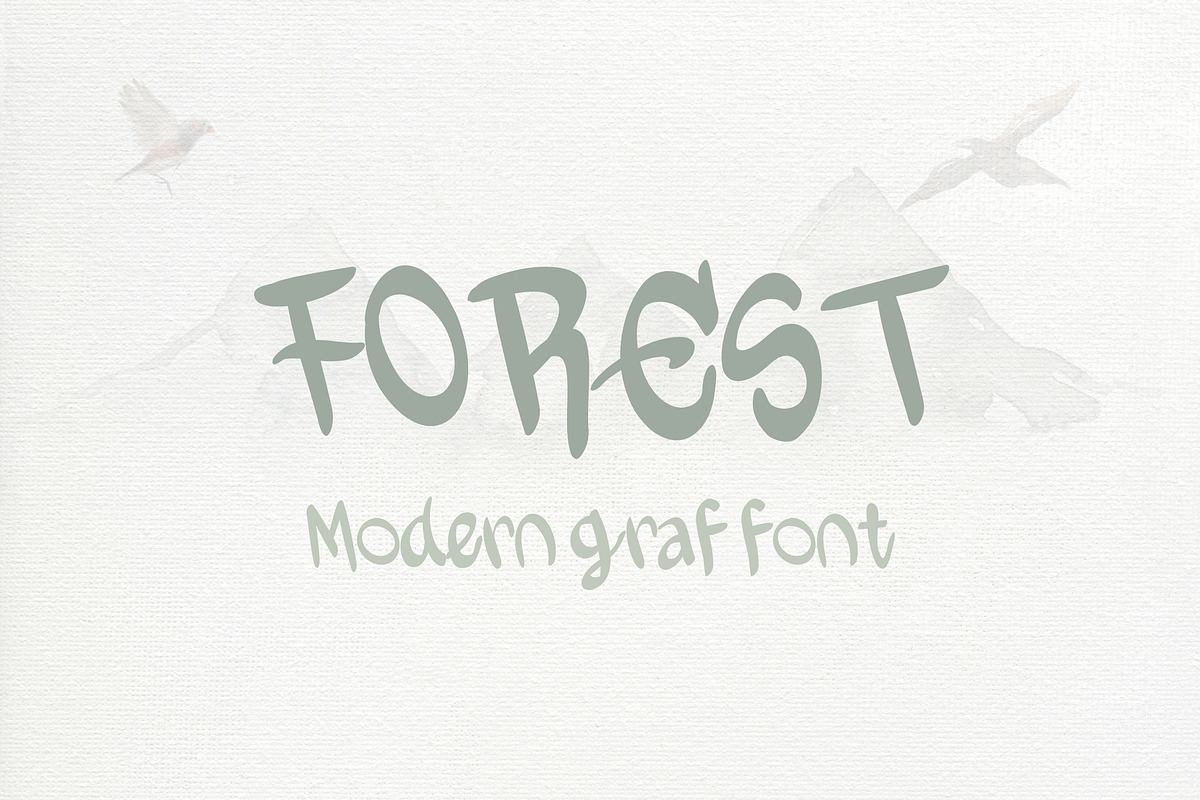
Forest – Modern Graf Font Free Download is a bold, urban-style typeface that blends modern graffiti flair with natural inspiration. Featuring sharp edges, dynamic strokes, and a rugged, organic feel, this font is perfect for streetwear branding, outdoor-themed posters, adventure content, and edgy digital graphics.
Its unique blend of street style and wilderness energy makes it stand out in any design. Whether you're creating an extreme sports logo, a music festival flyer, or urban apparel designs, Forest delivers strong visual impact with creative edge.
Designers love Forest for its balance of graffiti aesthetics and contemporary readability. Let your creativity run wild—download Forest – Modern Graf Font Free Download and bring a bold, nature-fused statement to your next project.